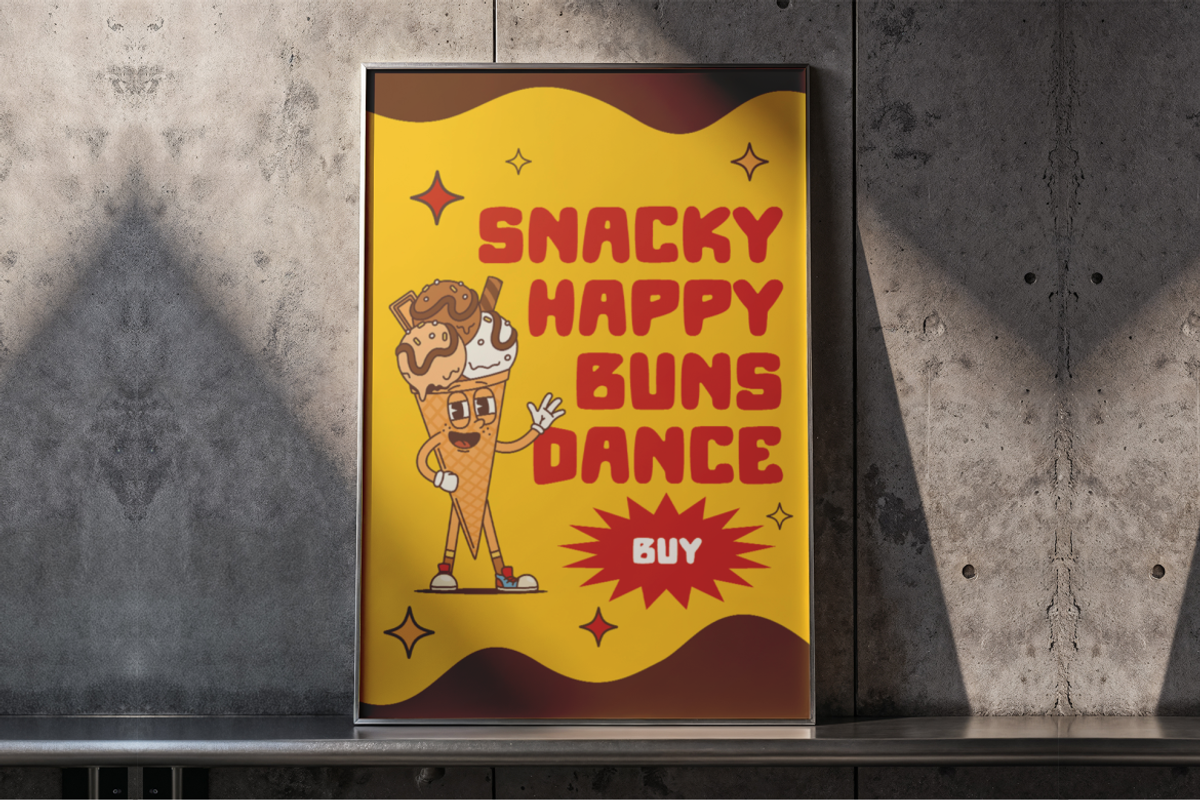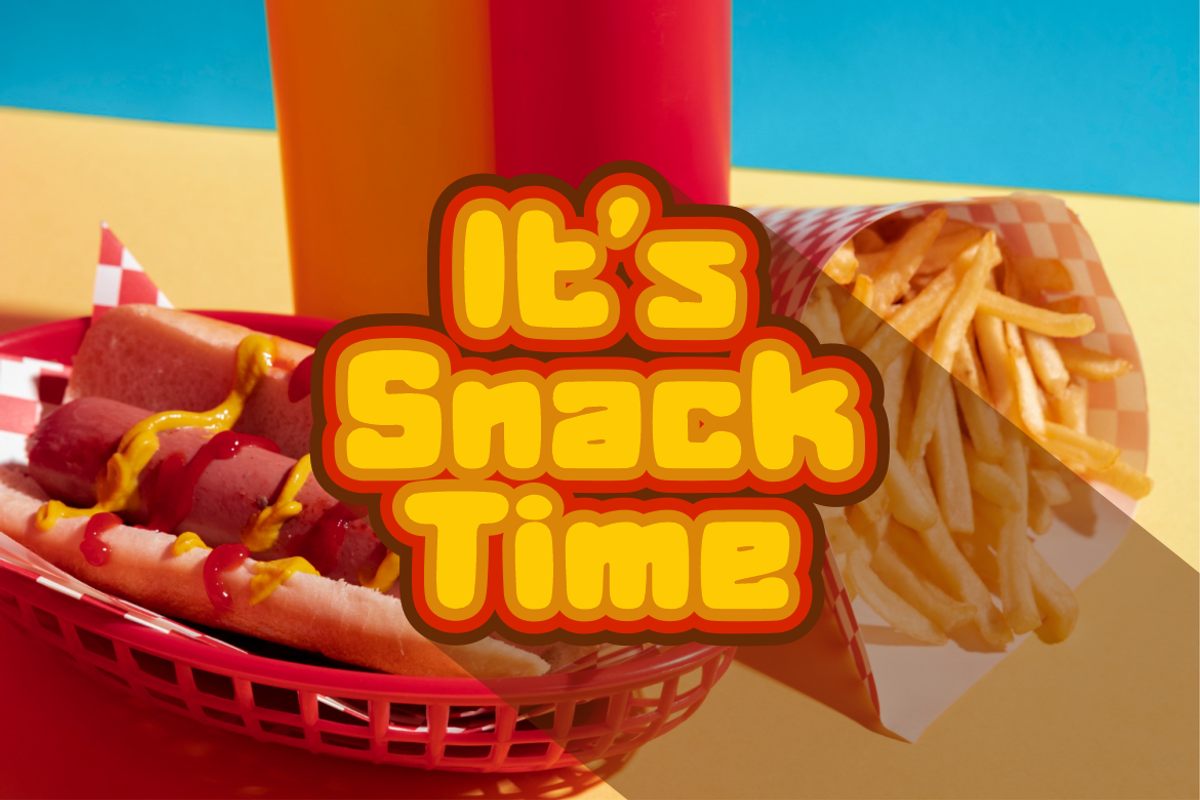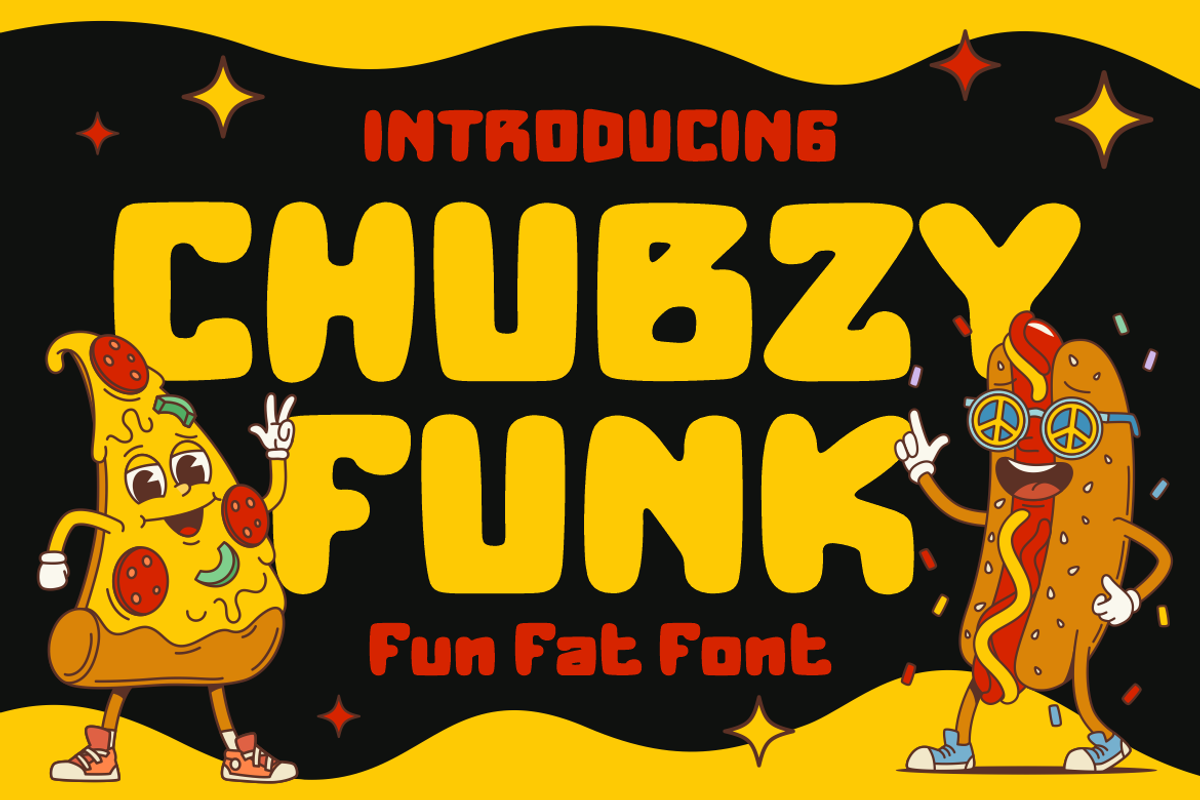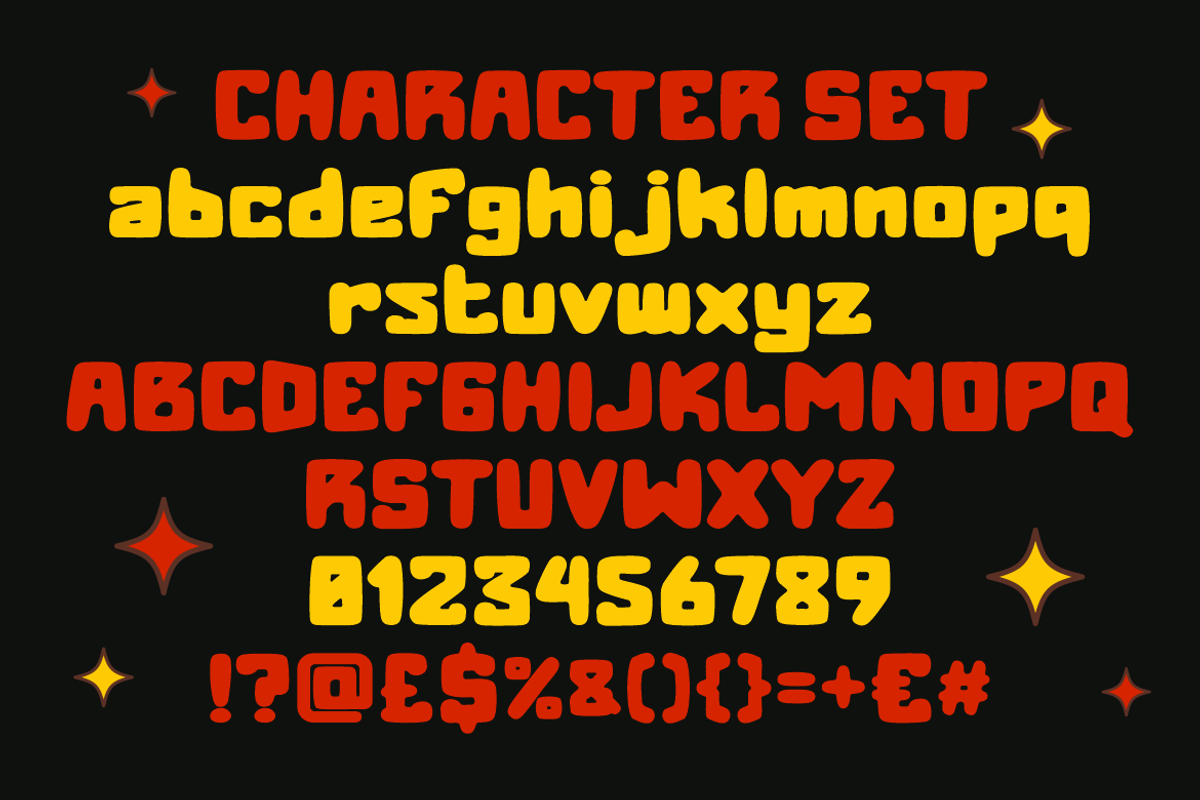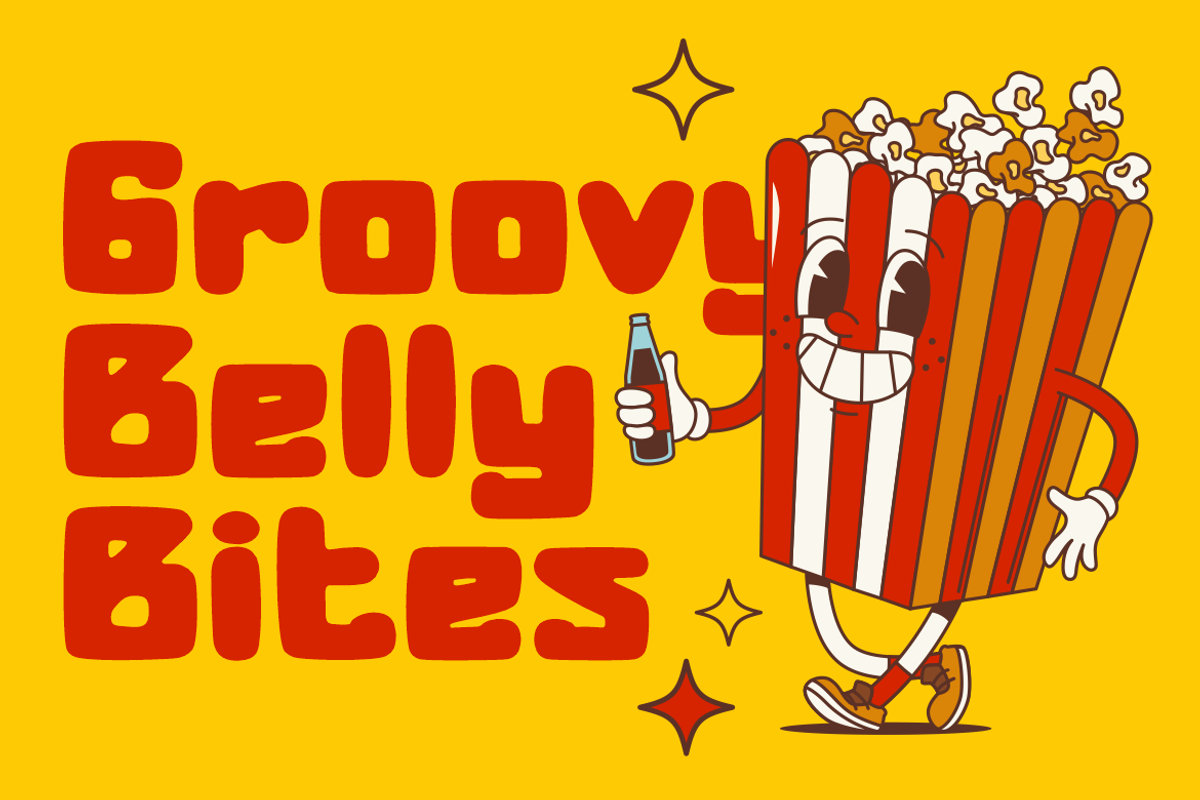
Chubzy Funk Fun Fat Font
Chubzy Funk – Fun Fat Font is a bold, rounded, and delightfully playful typeface inspired by the energy of street food culture, groovy vibes, and retro pop aesthetics. Each character in this typeface is crafted with a chunky and soft-edged design that radiates warmth and joy. From bouncy lowercase letters to compact uppercase characters, this font brings a consistent fat rhythm that’s perfect for capturing attention in food-related projects, kids’ branding, or quirky merchandise. The combination of thick stroke weight and smooth corners ensures excellent legibility while maintaining a fun, informal tone.
Chubzy Funk works brilliantly across various creative applications, especially in logo design, snack packaging, poster headlines, T-shirt graphics, birthday invitations, comic-style branding, and product labels. Its fat and funky layout makes it ideal for designs where personality and visual punch are key. Whether you’re designing for a fast-food brand, crafting DIY stickers, or launching a nostalgic cartoon concept, Chubzy Funk delivers charm and consistency with a vibrant twist. Add a splash of flavor to your typography with this fun fat font that’s built to make your message memorable.